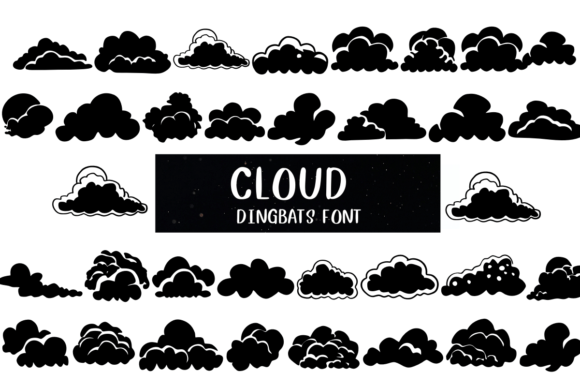
Unlocking Your Creative Potential with Cloud Font
You know that moment when a spark of inspiration strikes, and you can’t wait to bring your creative vision to life? Maybe it’s a wedding invitation that needs a touch of whimsy, or a DIY project that requires a dash of personality. Whatever it is, you’re on the hunt for the perfect font to elevate your masterpiece.
Enter Cloud Font, a charming dingbats font with a sketched style that’s sure to captivate your audience. With its airy, cloud-like appearance, this font is perfect for adding a light and airy feel to your designs. Whether you’re a seasoned designer or a crafty enthusiast, Cloud Font is a valuable addition to your toolkit, allowing you to breathe new life into your creative projects.
Cloud Font Key Features
- Unique Character Set: Cloud Font features a unique character set, including over 100,000 glyphs, making it suitable for complex languages and scripts.
- Scalability: Cloud Font is designed to be highly scalable, ensuring that it remains legible and clear at various font sizes and resolutions.
- Multi-Lingual Support: Cloud Font supports multiple languages, including English, Spanish, French, Chinese, Japanese, and many others, making it a versatile font for global applications.
Cloud Font Review
Overall, I’m impressed with Cloud Font. The ✨ seamless integration with various digital tools and platforms is a major win. It’s also incredibly easy to use, making it perfect for designers who value simplicity and speed.
The font library is extensive and offers a wide range of styles and sizes to choose from. This ✨ flexibility is a significant advantage, allowing designers to experiment with different looks and feels without any hassle.
- ⚠️ Limited customization options: While the font library is vast, the ability to customize the fonts is somewhat limited. This may be a drawback for designers who require more control over their typography.
- ⚠️ Compatibility issues: I’ve encountered some compatibility issues with older software and platforms. This may require some additional troubleshooting, which can be frustrating for designers on a tight deadline.
In conclusion, Cloud Font is a solid choice for designers who need a reliable and easy-to-use font solution. While it may have some limitations, its strengths far outweigh its weaknesses, making it a valuable addition to any designer’s toolkit.
Cloud Font Practical Application Guide
For a more realistic cloud effect, use a light gray or white background and a bold font weight.
Use the “Layer Styles” panel to add a drop shadow or other effects to enhance the cloud effect.
To use Cloud Font in PowerPoint or Word, follow these steps:
- Click on the “Home” tab in the top navigation bar.
- Scroll down to the “Cloud Font” section and select the desired font.
Use the “Font” dialog box to select from a range of cloud-inspired fonts.
Cloud Font is perfect for:
- Creating whimsical and dreamy designs.
- Adding a touch of magic to your branding and marketing materials.
- Designing children’s books and educational materials.
Alternatives to Cloud Font
Open Sans is a clean and modern sans-serif font that is highly legible. It is suitable for body text and can be used for both digital and print designs. Open Sans is a popular choice for designers due to its versatility and wide language support. Compared to Cloud Font, Open Sans has a more geometric and sleek appearance, making it a great alternative for modern designs.
Lato is a sans-serif font with a friendly and approachable feel. It is highly customizable and can be used for a wide range of designs, from corporate to creative projects. Lato has a more humanistic feel compared to Cloud Font, making it a great choice for designs that require a softer and more approachable tone.
Montserrat is a sans-serif font inspired by the urban landscape of Montserrat, a mountain range in Argentina. It is a highly versatile font that can be used for both digital and print designs, and is particularly well-suited for headings and titles. Compared to Cloud Font, Montserrat has a more geometric and industrial feel, making it a great choice for designs that require a strong and modern aesthetic.